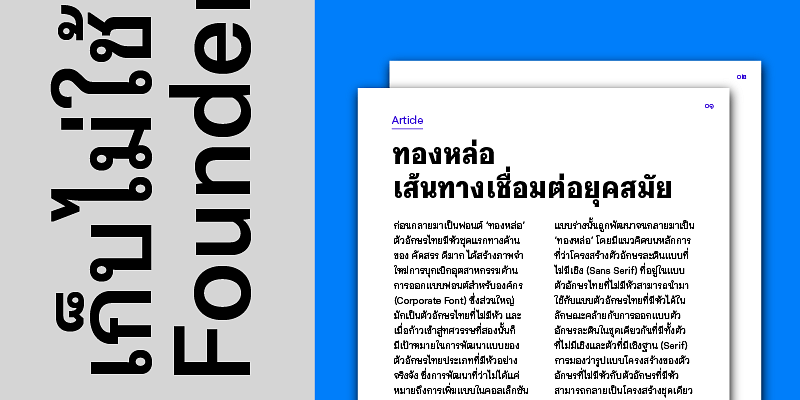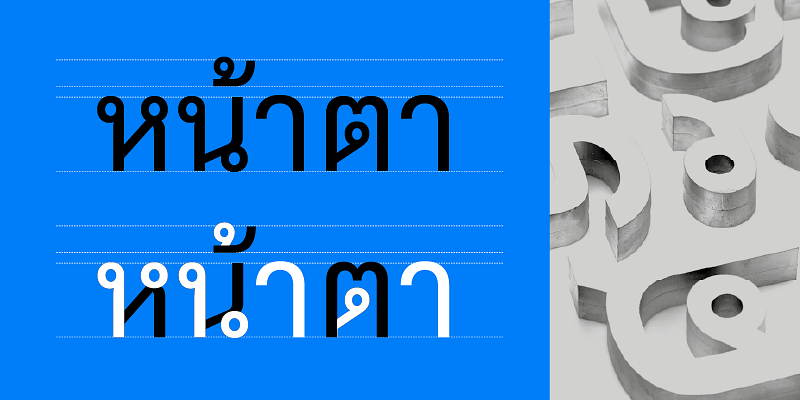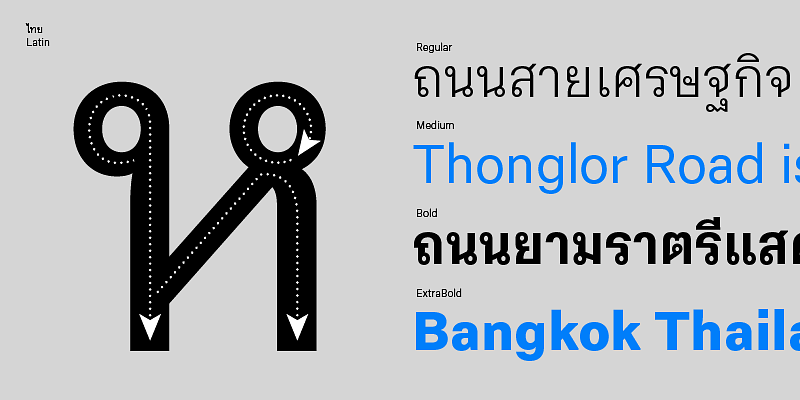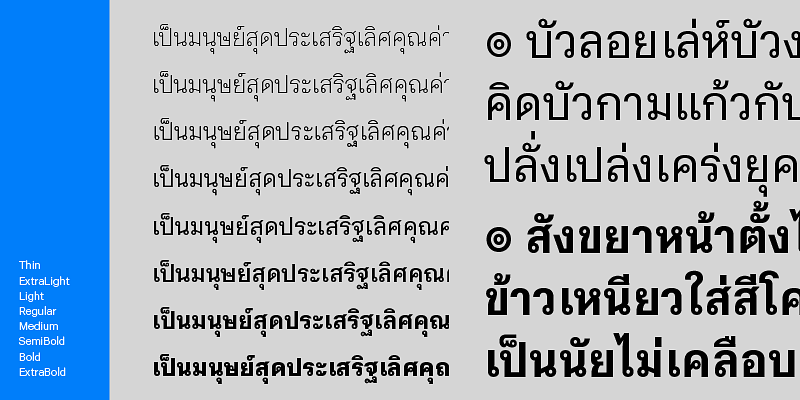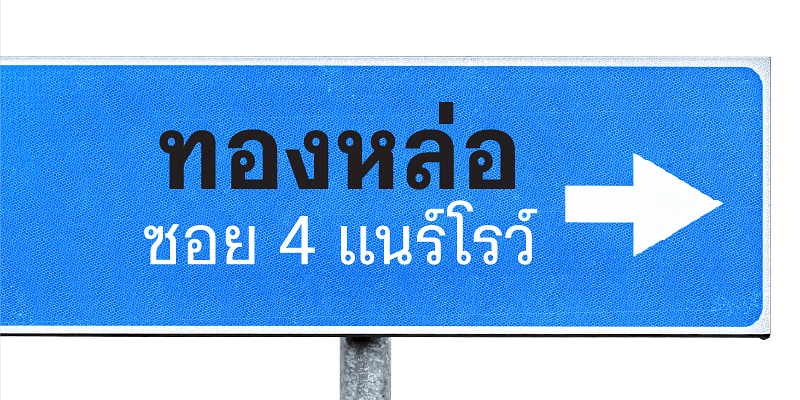
Thonglor Soi 4 Nr is a narrow version in the Thong Soi 4 series. It was designed off of Thonglor Soi 4 in scenarios that required a narrower limited working area such as on applications on smart phones. This version will be familiar with natives as Thai letterforms traditionally have narrow forms since the beginning.